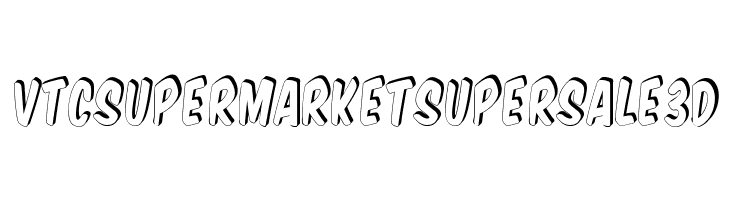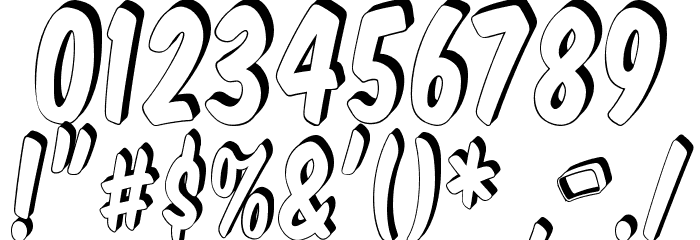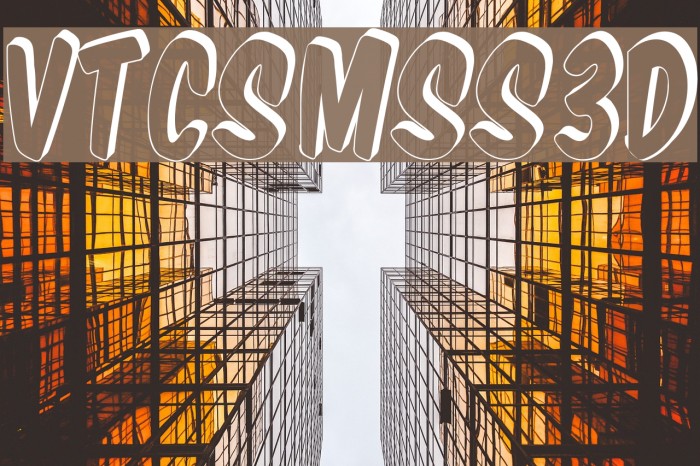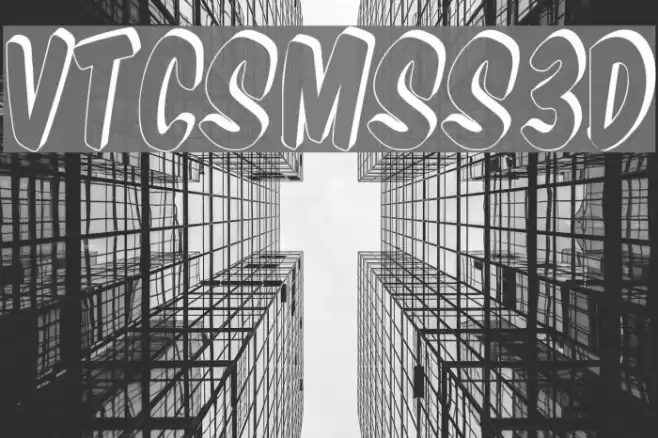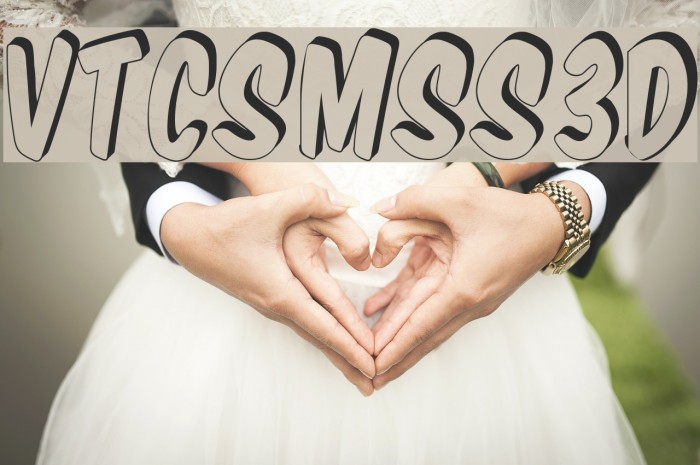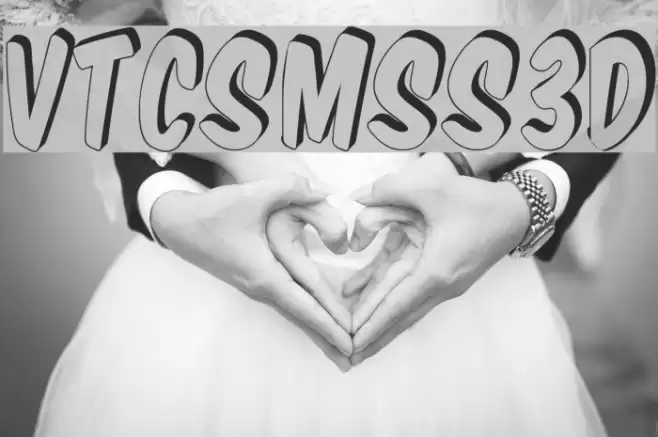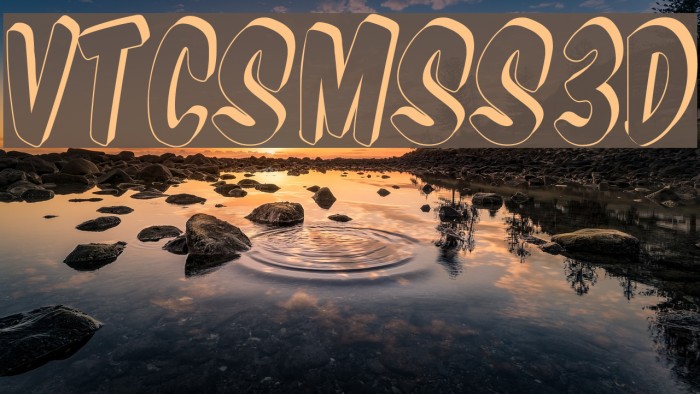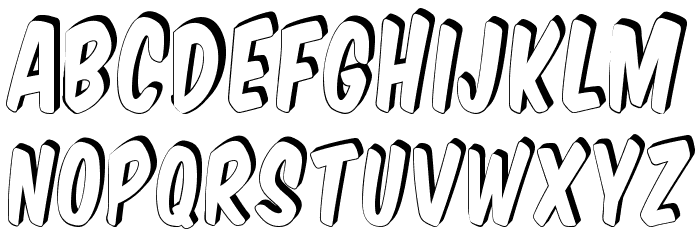
VTCSuperMarketSuperSale3D Font
VTCSuperMarketSuperSale3D Description
This font features a bold, three-dimensional style with a playful and dynamic appearance. The characters are uppercase and lowercase letters, along with numbers and special symbols, all designed with a thick outline that gives a shadow effect, enhancing the 3D look. The strokes are consistent in thickness, providing a uniform appearance across all characters. The font has a slightly rounded edge, adding a friendly and approachable feel. The spacing between characters is normal, ensuring readability while maintaining its bold presence. This font is ideal for creating eye-catching headlines and promotional materials.
| Use Case | Headlines, Logos, Promotional Materials |
| Proposed Projects | Ideal for use in advertising, posters, banners, and any project requiring a bold, attention-grabbing typeface. |